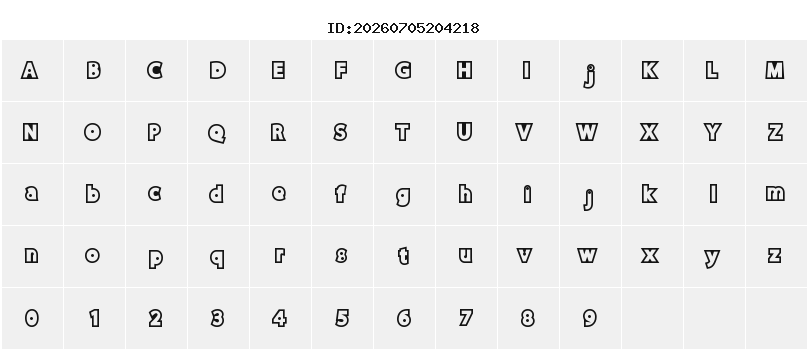
DiscoRush Preview
• Font Name: DiscoRush
• Full Font Name: DiscoRush
• Version: Version 1.00 November 28, 2012, initial release
• Designer: Max Infeld
• Manufacturer: Xerographer Fonts
• Description: This font at MFA studio chico,CA
About DiscoRush.ttf
DiscoRush.ttf is a modern, elegant sans-serif font designed for ultimate readability and visual harmony. Perfect for branding, headlines, web design, and print materials.